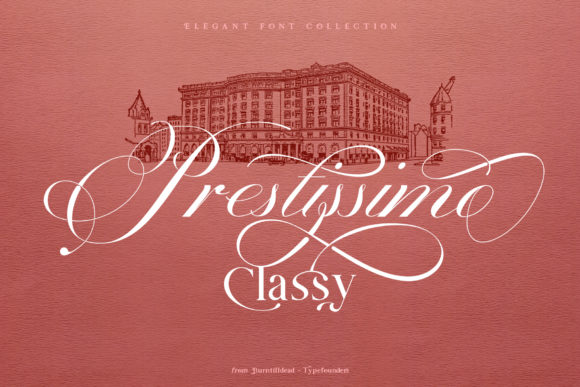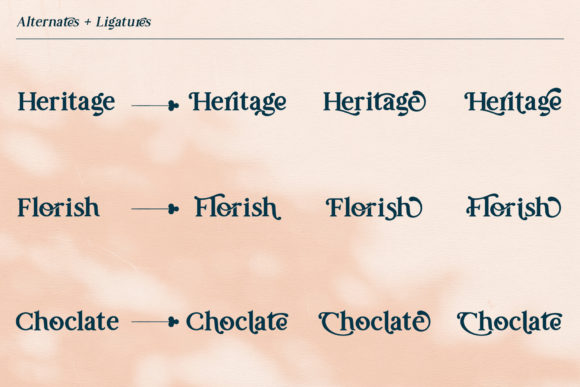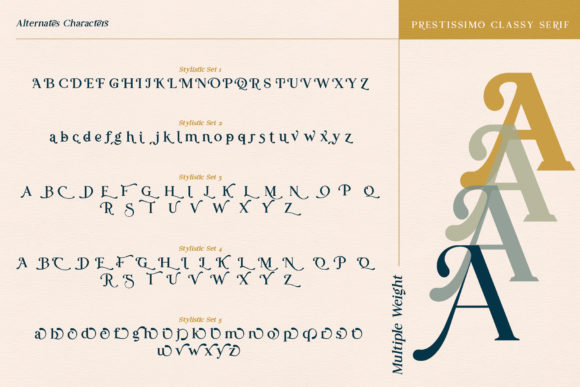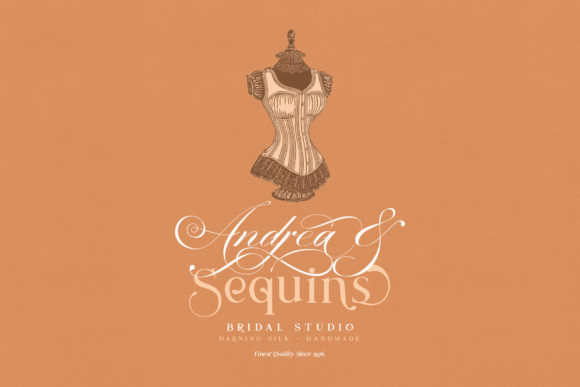
About Prestissimo Classy Font
Prestissimo Classy is an exquisite and timeless handwritten font. It looks stunning on wedding invitations, thank you cards, quotes, greeting cards, logos, business cards and every other design which needs a handwritten touch.